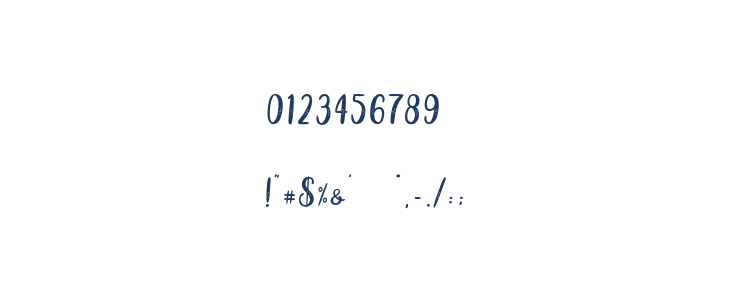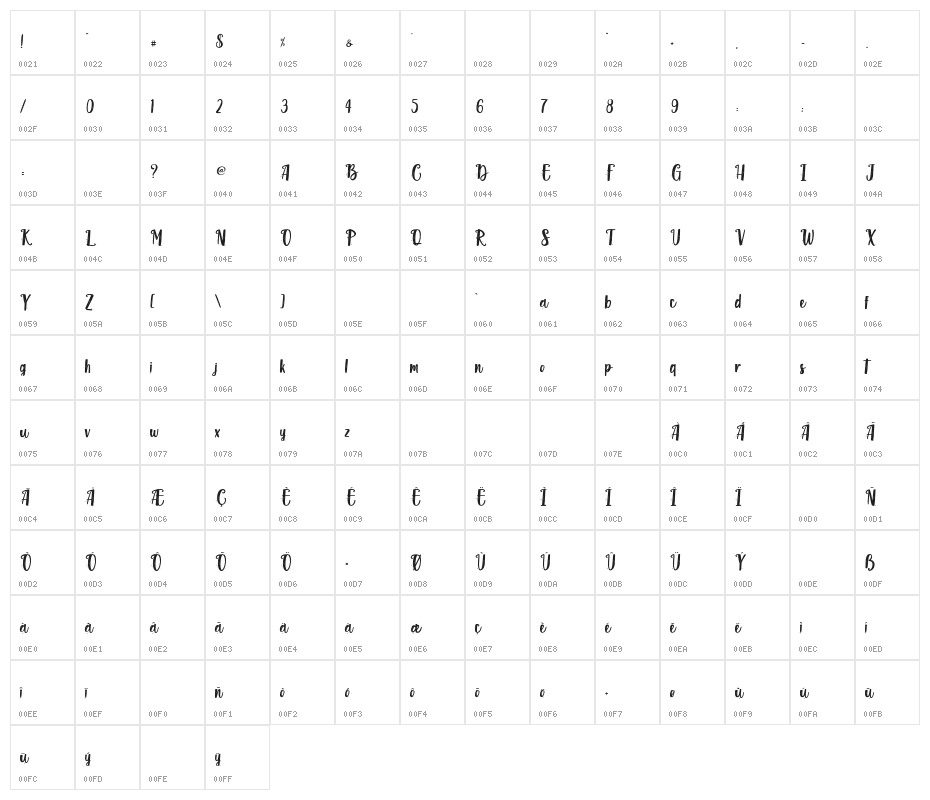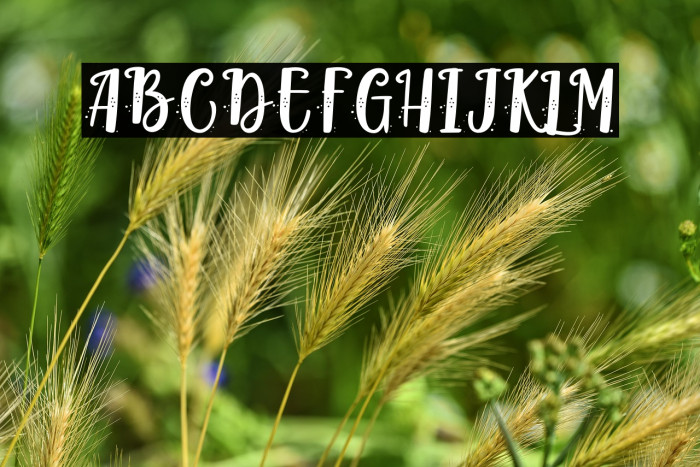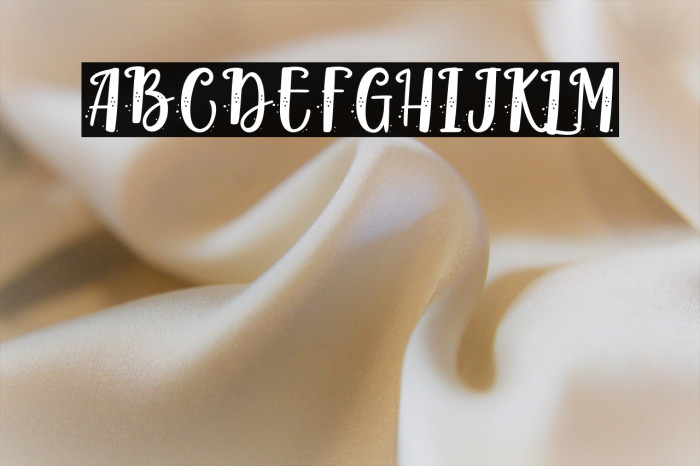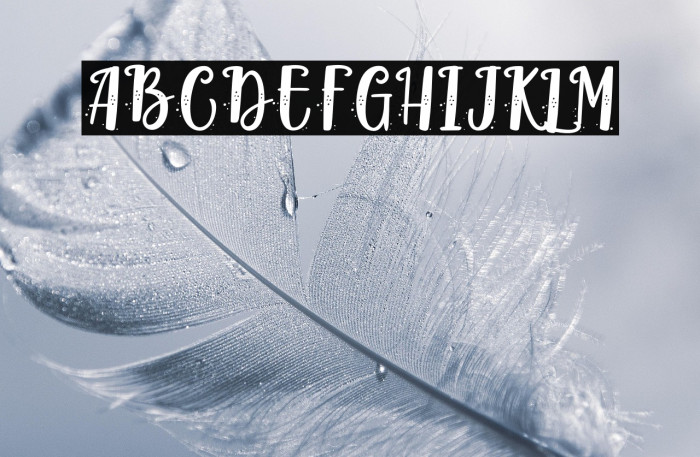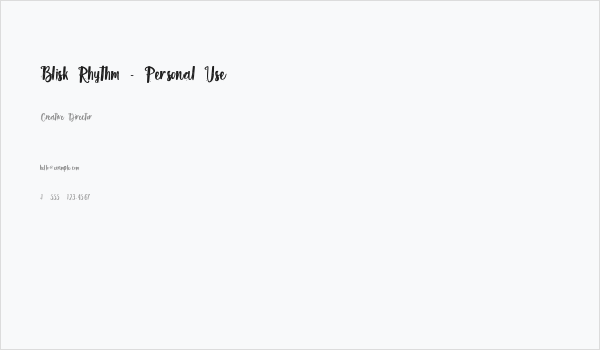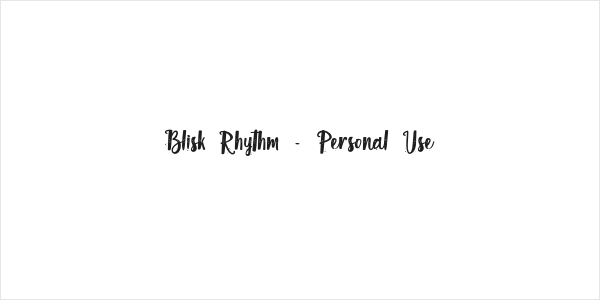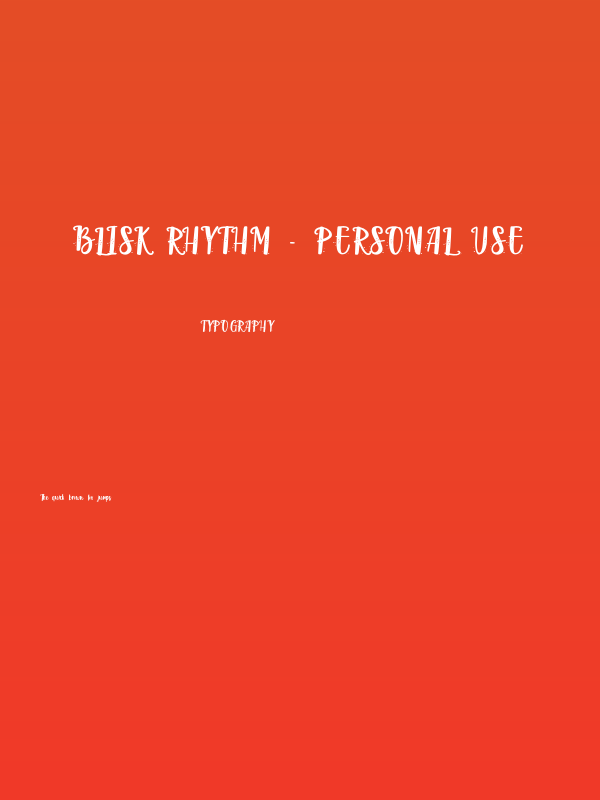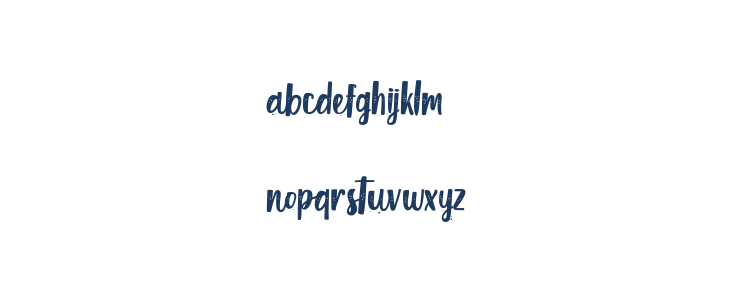
Blisk Rhythm - Personal Use Font
Blisk Rhythm - Personal Use Description
This font features a bold and dynamic style with a distressed texture that adds a vintage and handcrafted feel. The uppercase letters are tall and slightly condensed, while the lowercase letters maintain a consistent flow with a slight slant, enhancing the script-like appearance. The numerals are robust and align well with the overall aesthetic, making them suitable for impactful designs. Special characters are included, maintaining the same textured and bold style, ensuring versatility in various design contexts.
Overall StyleVintage
Proposed ProjectsIdeal for branding projects, vintage-themed designs, posters, and social media graphics where a bold and artistic touch is desired.